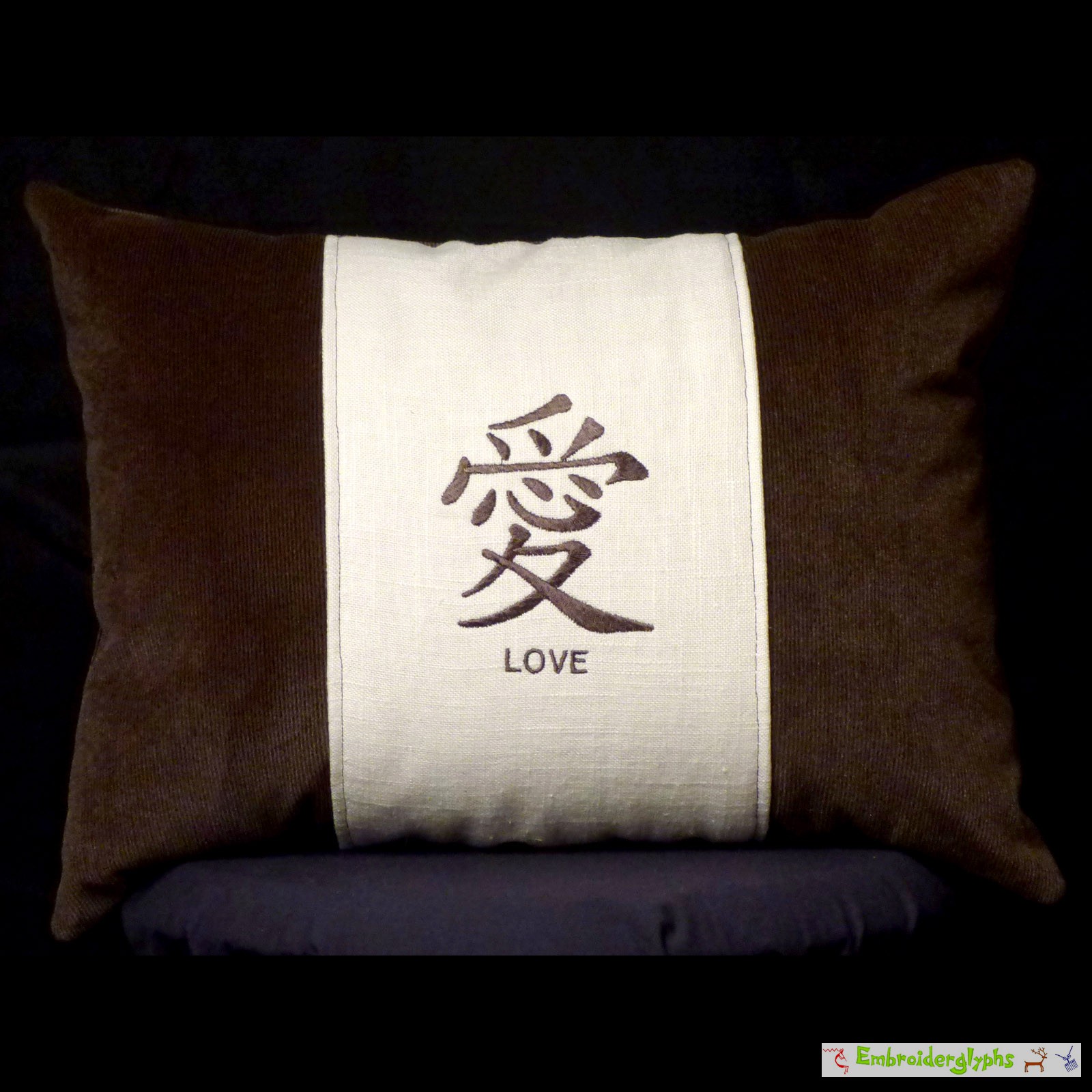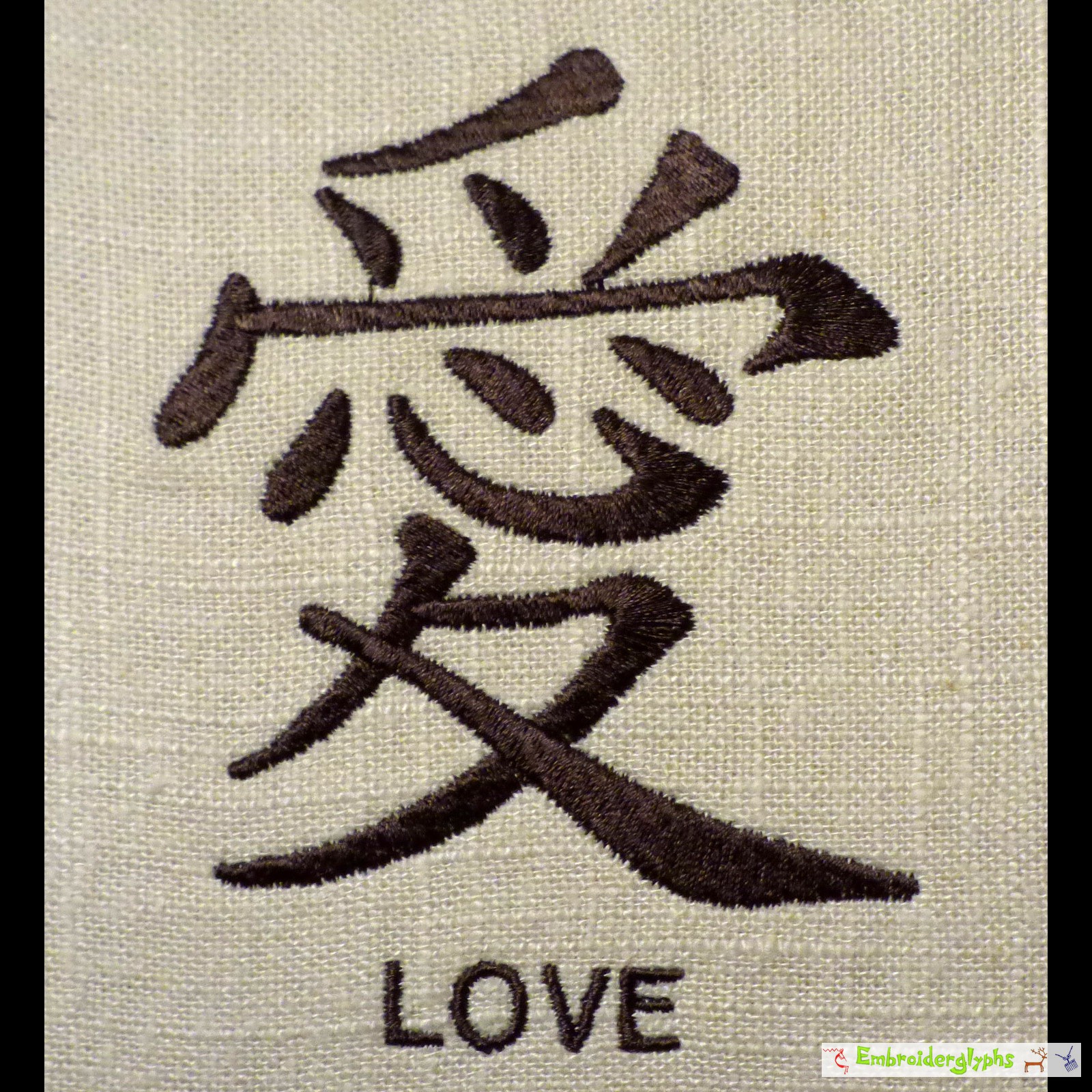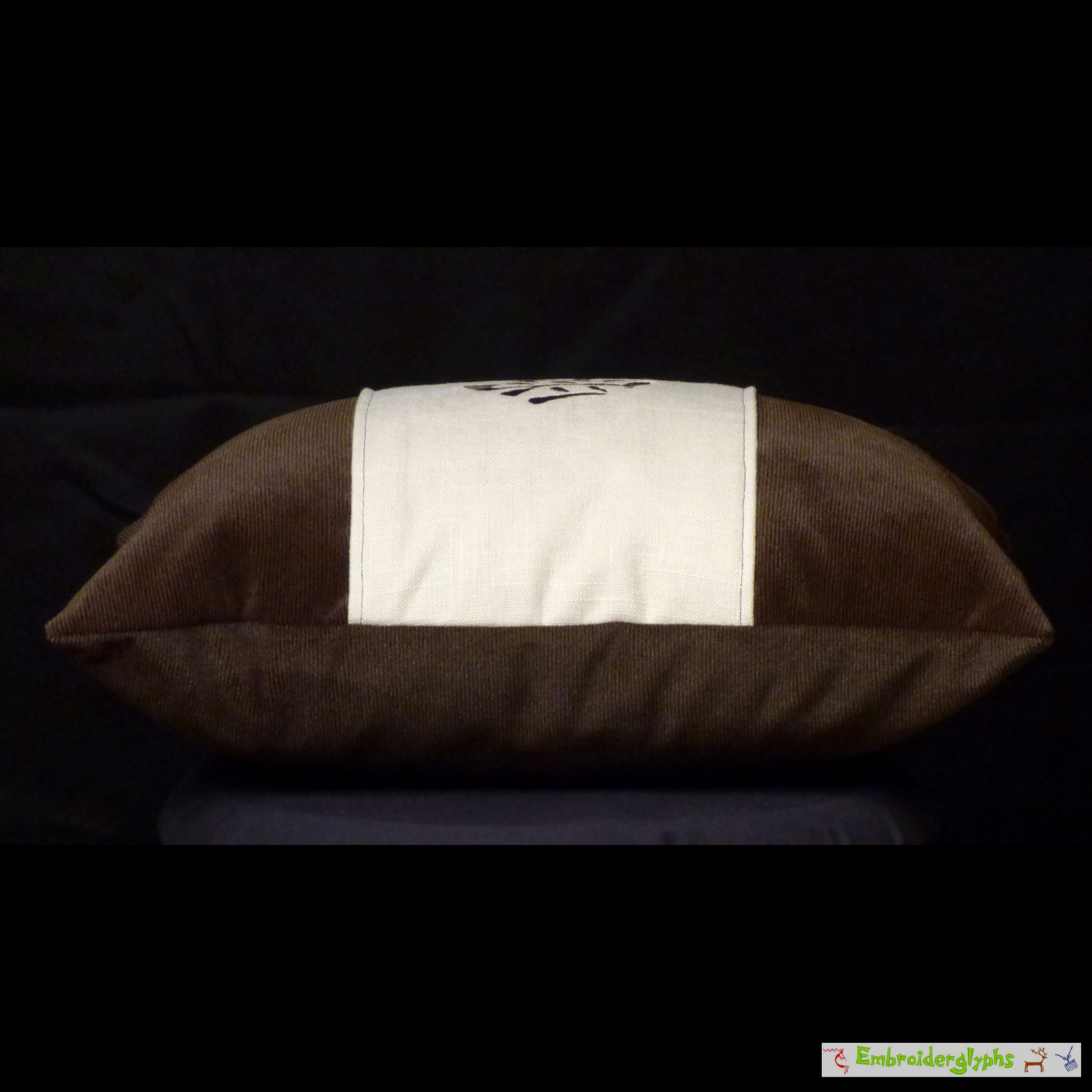
Brown Chinese Love Pillow
This is a very warm & friendly pillow. It would look great in a wide variety of situations and decors.
This is a one-of-a-kind custom accent pillow. The design used is the Chinese symbol for love. The thread color is brown. The pillow size is approximately 12″ x 16″ x 4″. The center panel is an off-white color. The side panels and back are a brown corduroy-like fabric. The fabrics are very soft. The brown fabric reflects light in a unique wave-like fashion. I overexposed the 3rd photograph of the back so it is easier for you to see this.
This love glyph is perhaps the most widely known of the Chinese symbols. The symbol is the character, 愛, “ài.” This is pronounced like the English word, “eye.” It translates: to love, affection, to be fond of, to like. On this pillow, this symbol is about 3.25 inches tall.
The type of calligraphy used — its “font” — is a simplified font that has nice curves, is elegant, and digitizes well. This is not a machine font in an embroidery machine. Each part of the character has been digitized by hand. The character's strokes actually stitch out in the correct order as if a professional Chinese calligrapher was drawing them.
This Embroiderglyph's design would also be great on a purse, a tote, or sweatshirt. If you prefer, we can easily make this design with or without the English “Love” underneath.